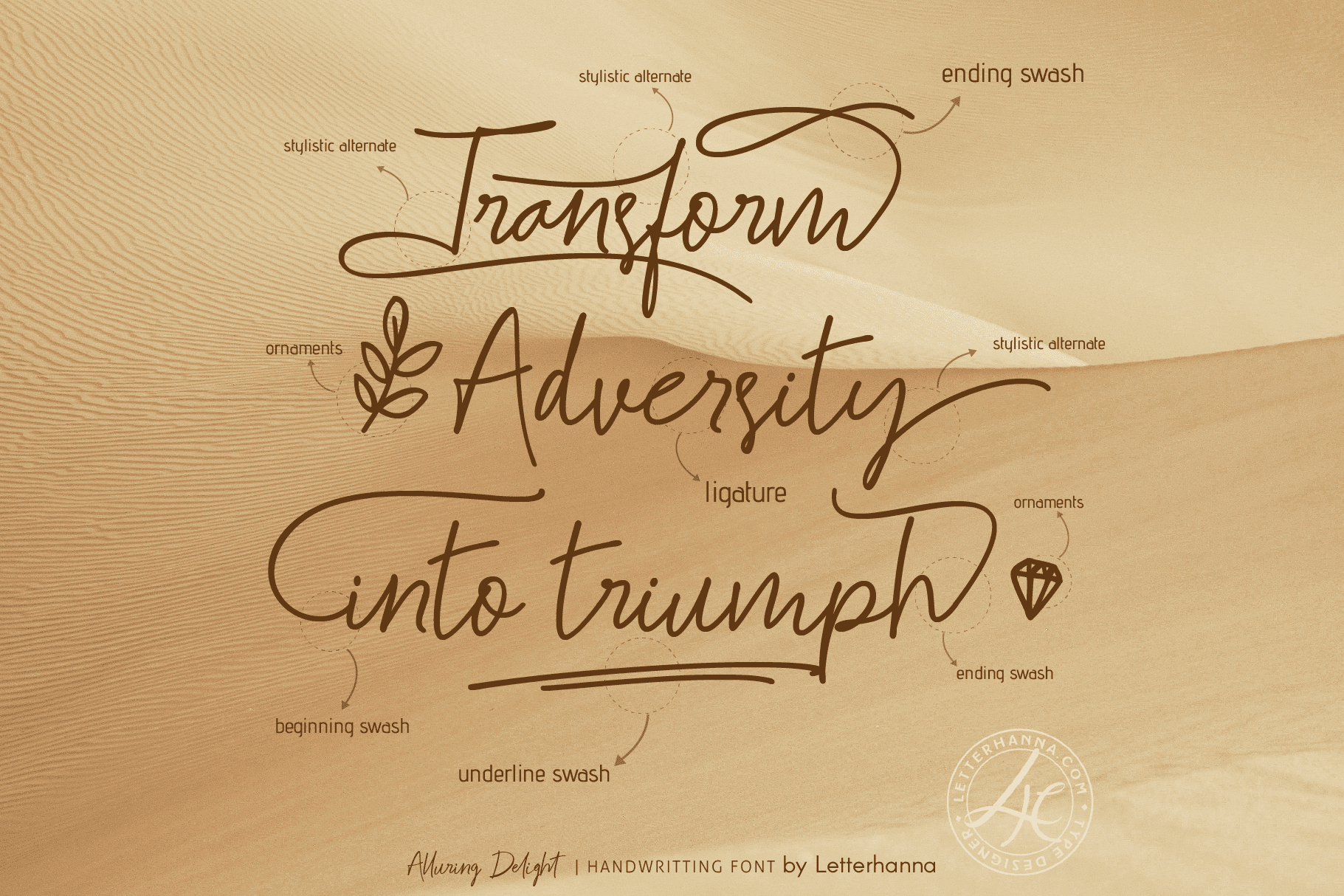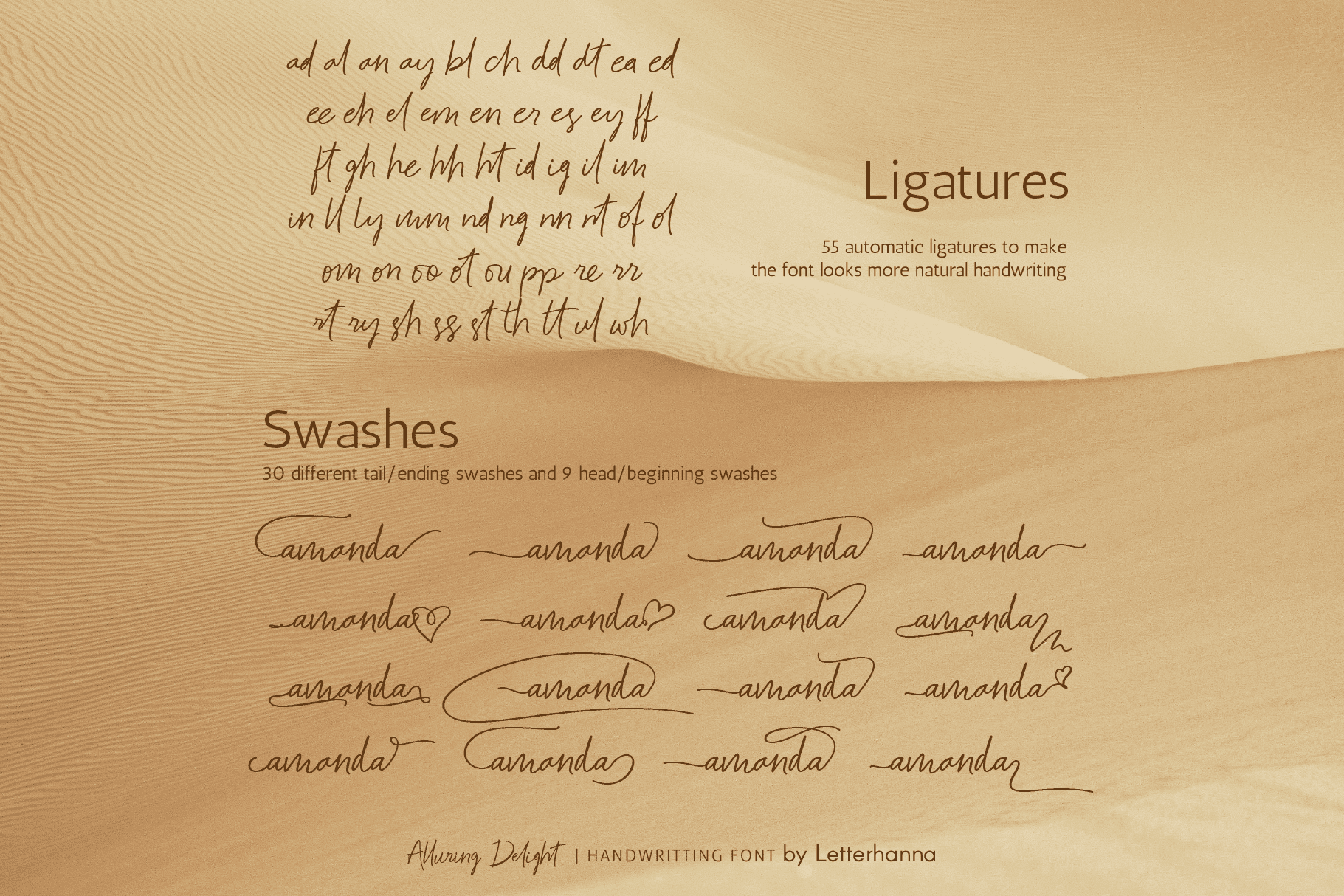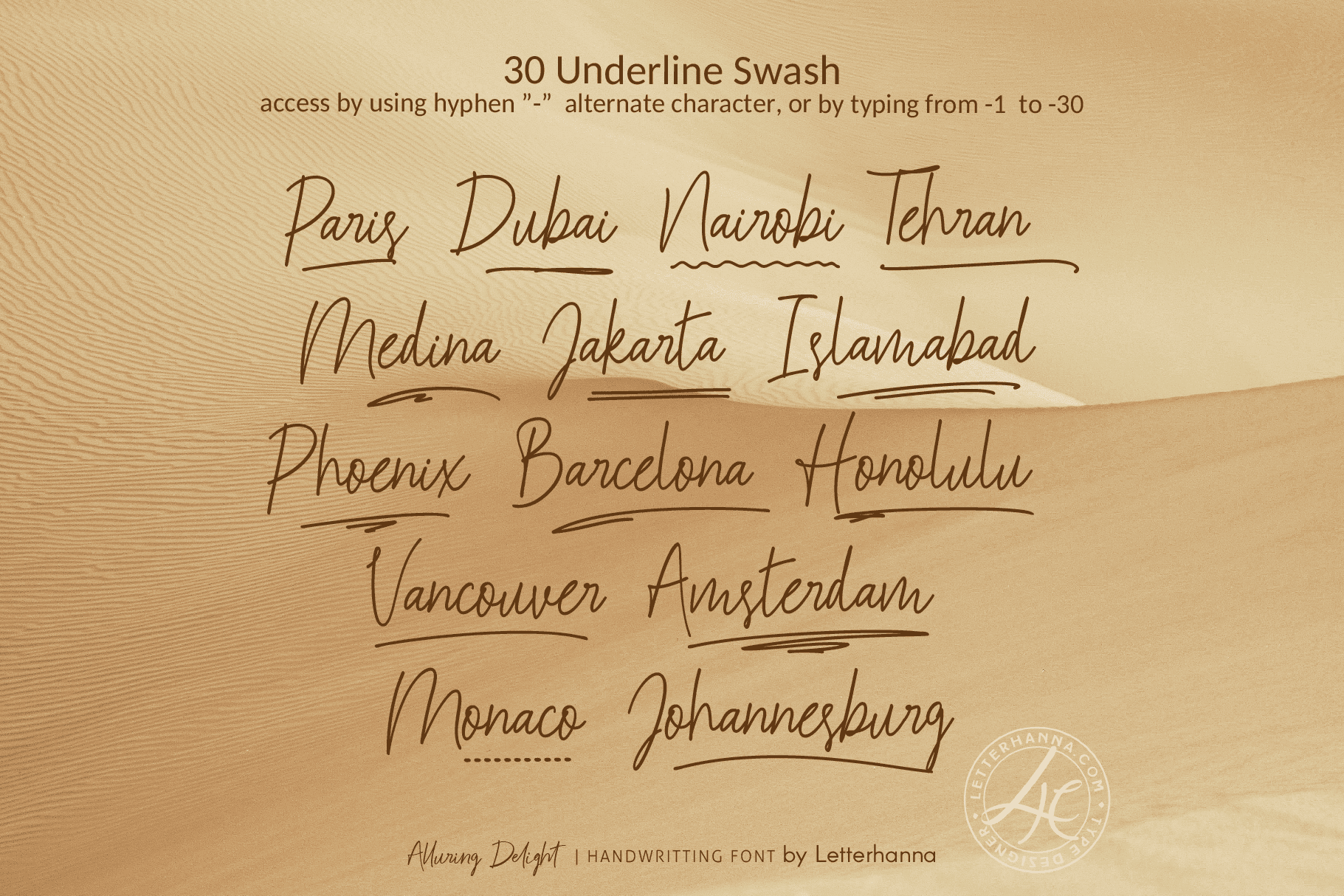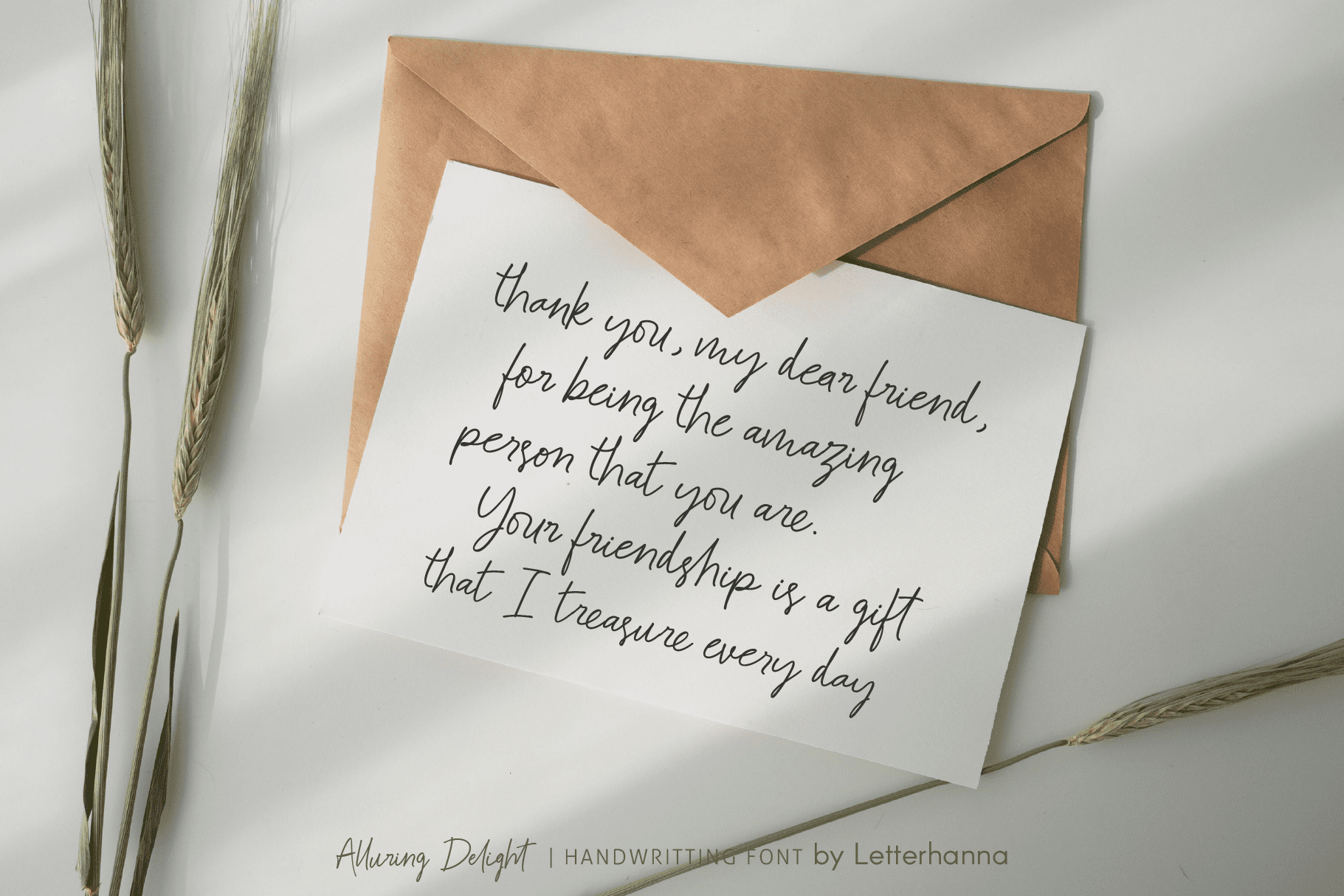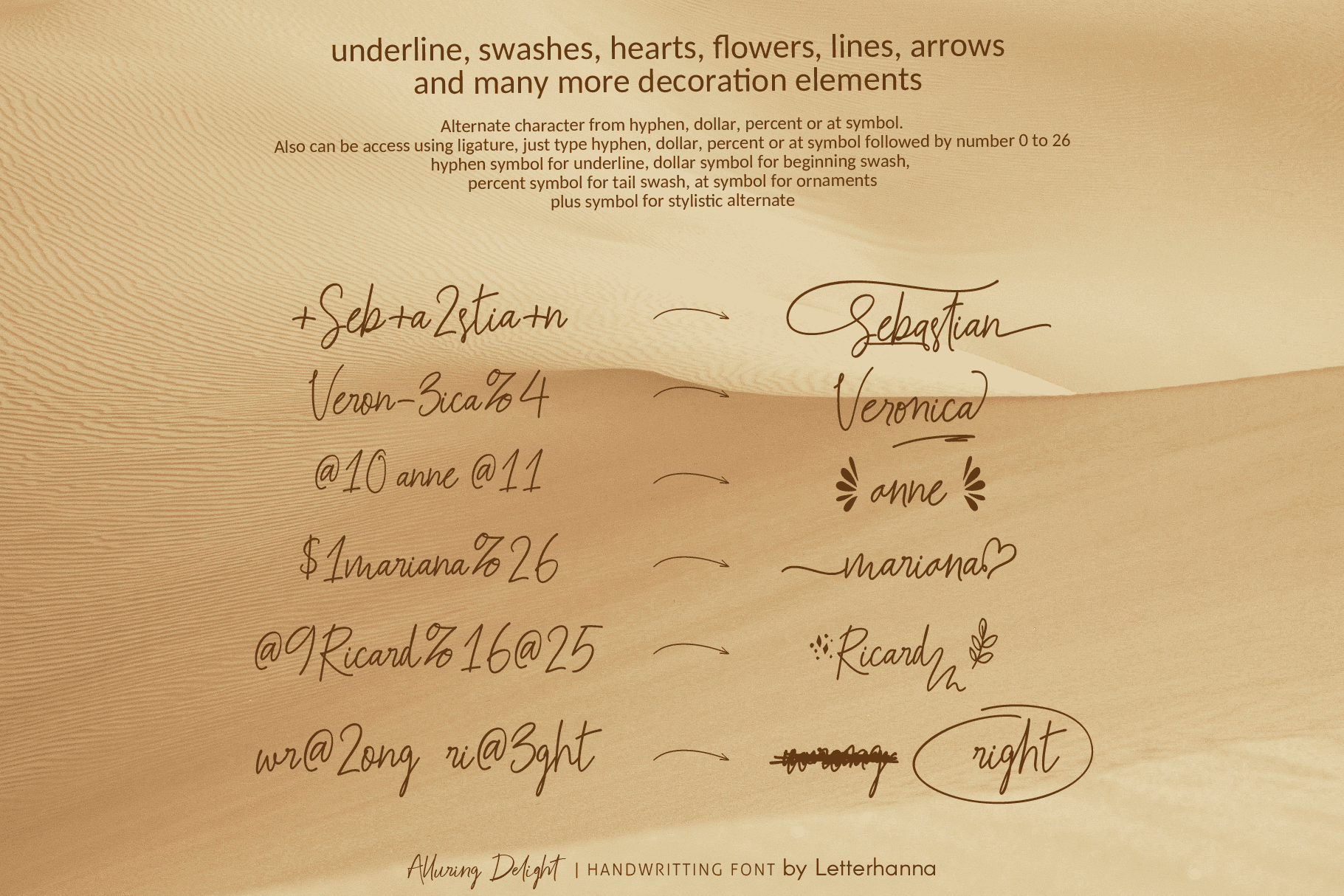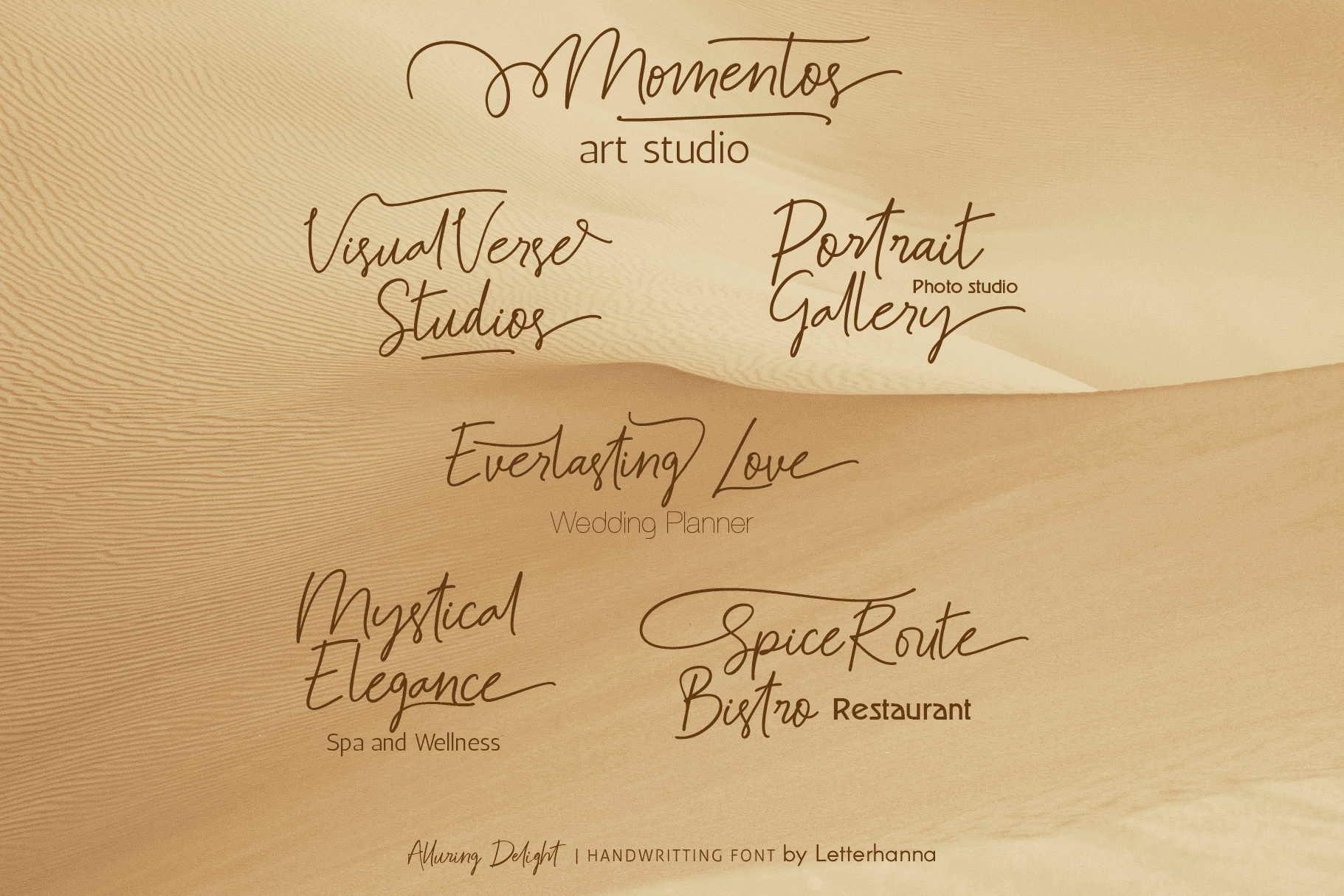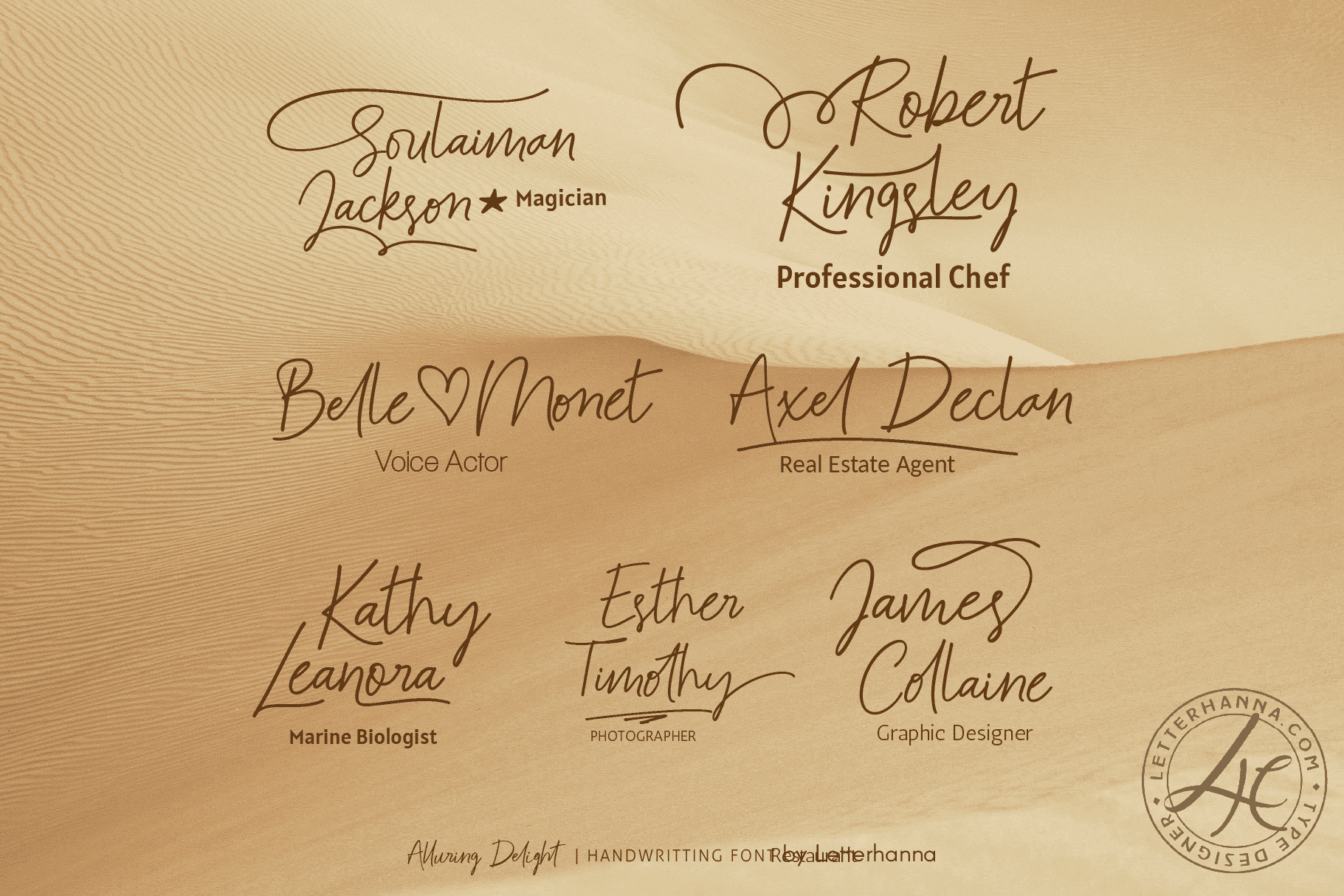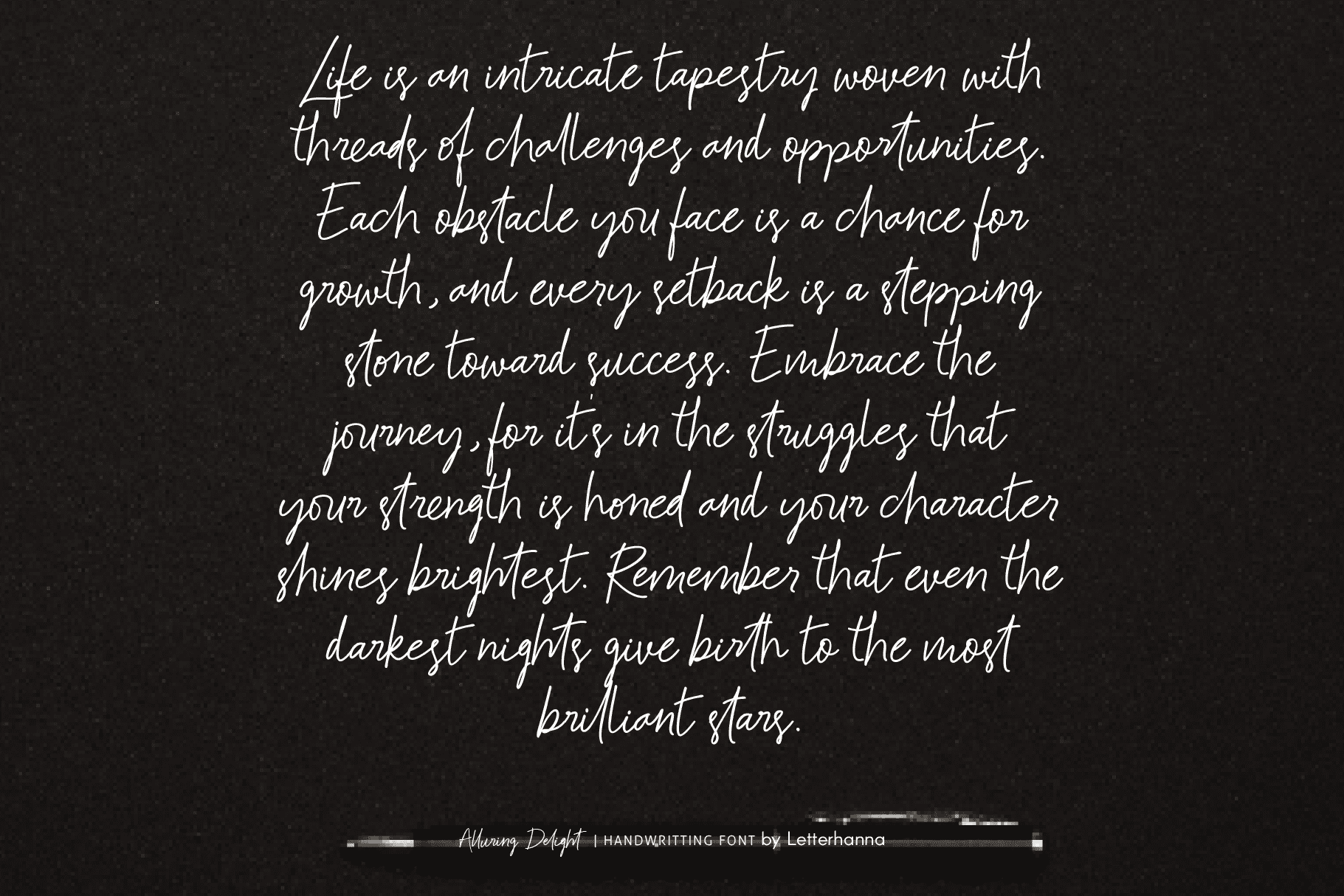
Introducing “Alluring Delight” – a captivating handwritten font that effortlessly blends grace with whimsy. Its organic, flowing script and charming imperfections make it perfect for invitations, branding, and more. Dive into the world of elegance and allure with this exquisite typeface.
Alluring Delight Font was created to look as close to a natural handwritten script as possible by including over 55 natural-looking opentype ligatures, Uppercase and lowercase Stylistic Alternate, a lot of head/beginning swashes and tail/ending swashes. There are also underline swashes included and lot more ornaments, arrow, scribbles, etc.
Stylistic alternate can be access by type plus symbol “+” in front of the original letter, for example type +A to get stylistic alternate of letter A capital.
Underline swashes can be access by type hyphen symbol “-” then followed by number 1 to 30, for example type -3, -22 or -17 etc to get various different underline swashes.
Head/beginning swashes can be access by type dollar symbol “$” then followed by number 1 to 9, for example type $2 or $8 to get various different head/beginning swashes.
Tail/ending swashes can be access by type percent symbol “%” then followed by number 1 to 30, for example type %3 or %15 etc to get various different tail/ending swashes.
Ornaments can be access by type at symbol “at” then followed by number 1 to 26, for example type @4 or @13 etc to get various different ornaments.